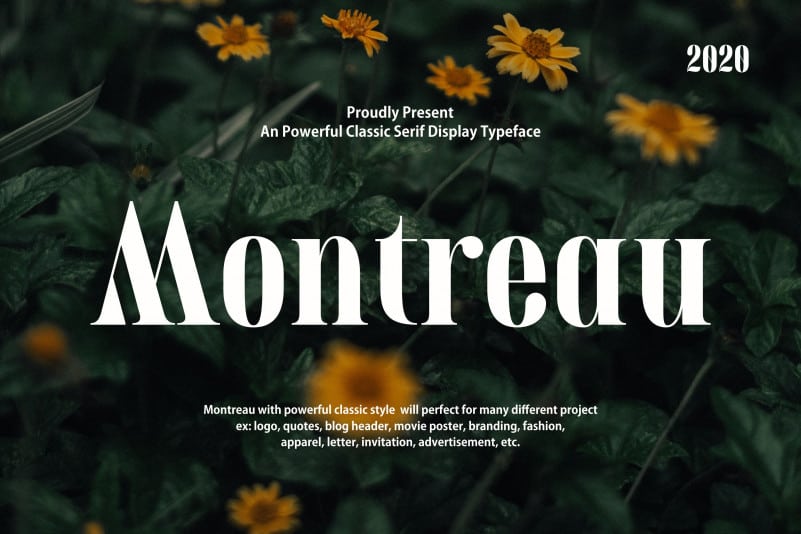
Montreau Serif Font
Montreau Serif Font is a vintage serif withits versatile set of uppercase and lowercase letters, numbers, and symbols can be used for printed projects as well as UX and UI designs.
Its classic condensed characters and the contrast between thin and thick curves attract the eye in a variety of settings from luxury package designs to album cover art.